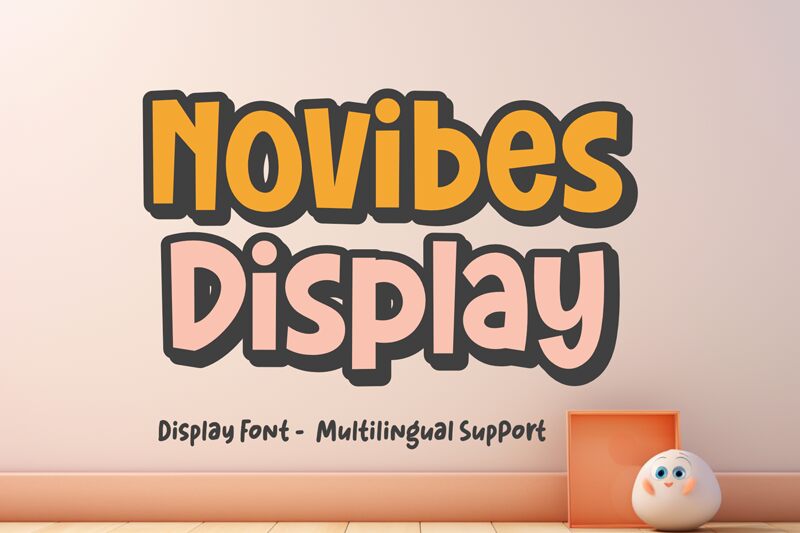
Novibes Display font by DumadiStyle is a dynamic and bold display font that captures attention with its playful cartoon style. This striking typeface boasts exaggerated curves and whimsical shapes, making it perfect for projects that require a fun, eye-catching look.
Ideal for children's books, party invitations, or playful branding, Novibes Display offers creative professionals an opportunity to inject personality into their designs. Its cartoon aesthetic is especially suited for vibrant posters and digital graphics.